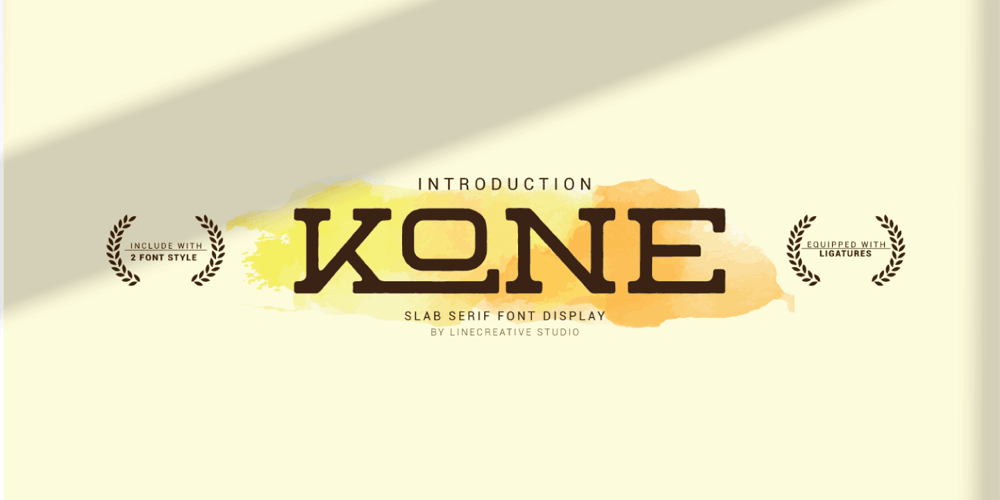
Klone Font Family was designed by Ari Juanda and published by Linecreative. Klone contains 2 styles and family package options. Klone is a slab-serif font that gives the impression of being clean and very elegant. This font supports Latin and Western European languages. It is also equipped with ligatures, so you can design without limits.The Regular style has traditional square edges and corners, the Stamp style features rounded edges and corners.